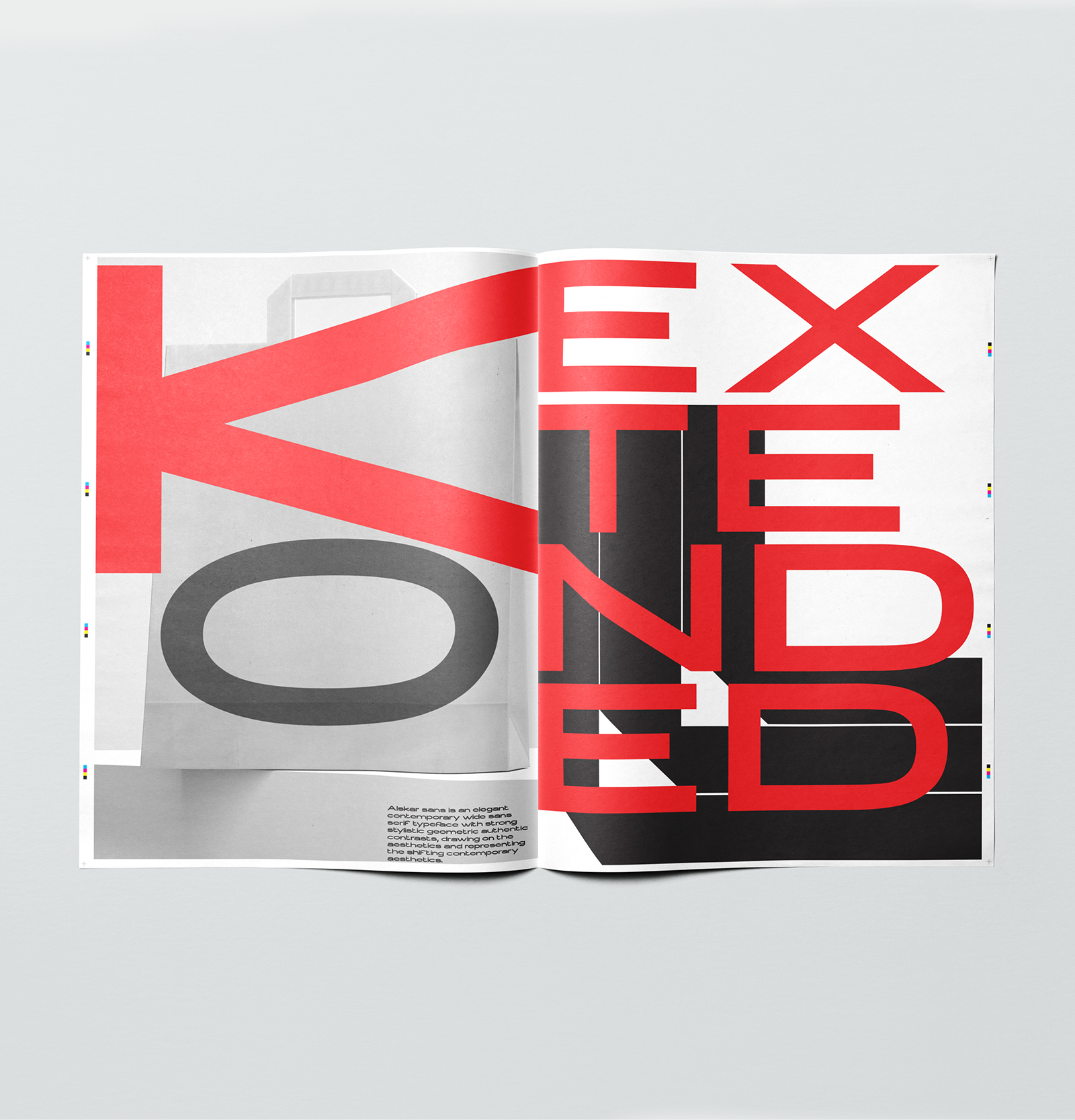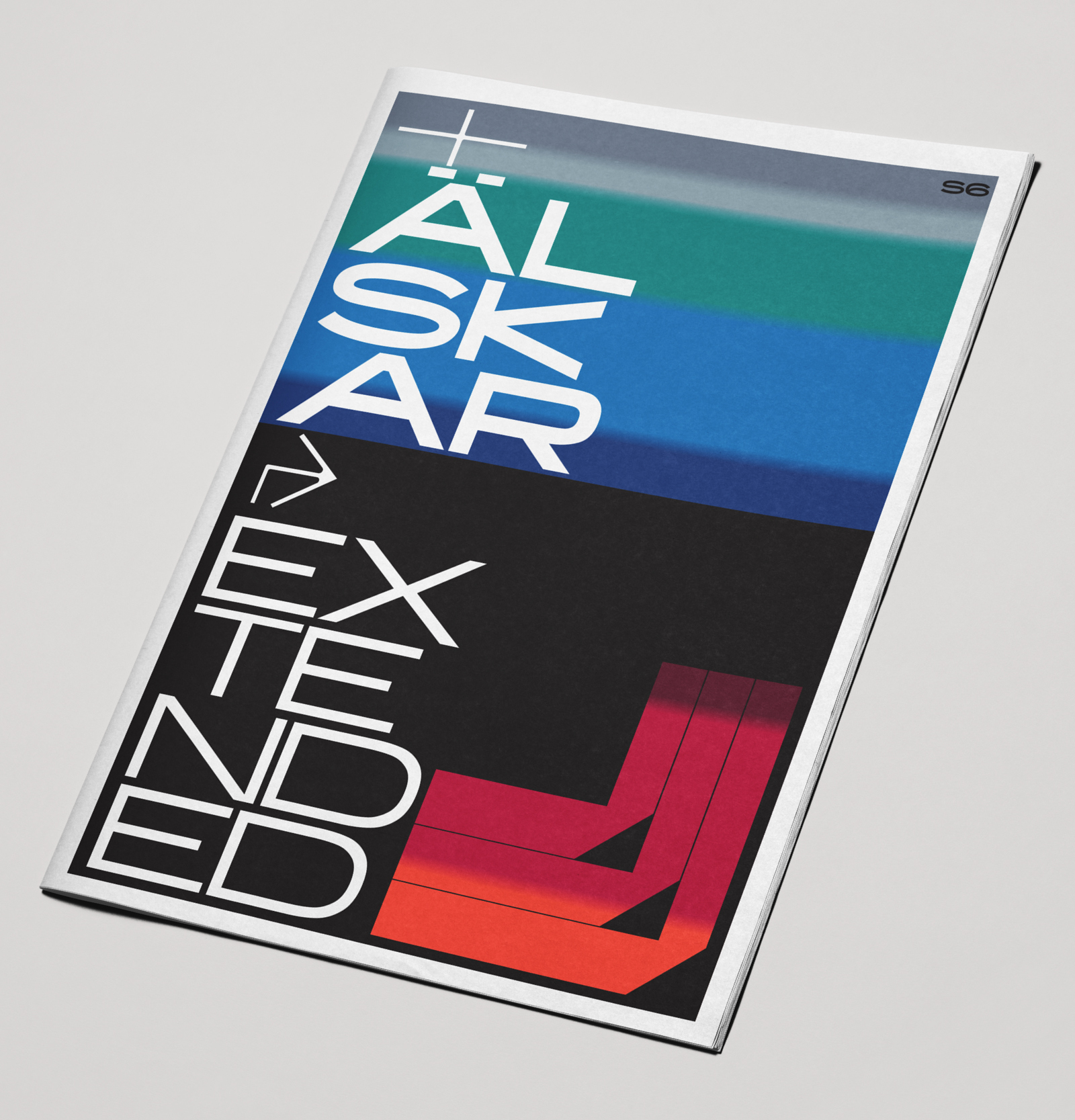
Alskar sans is an elegant contemporary wide sans serif typeface with strong stylistic geometric contrasts. The distinctive stance gives the right visual consistency for branding and communications. Alskar sans is perfectly suited for headlines, large-format prints, brand identities, social media, advertising, editorial design, posters, magazines, logos, headings, body copy, digital and more.​